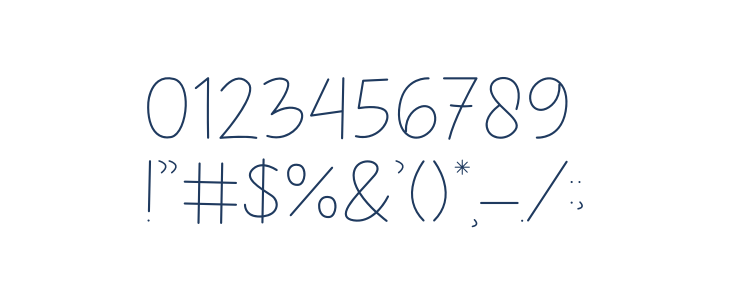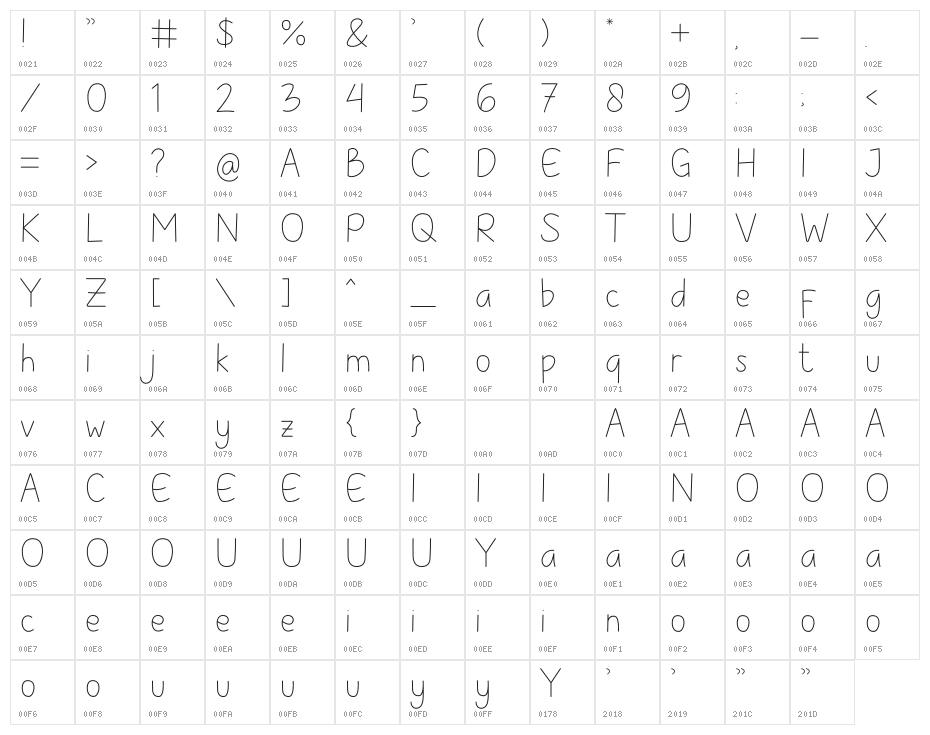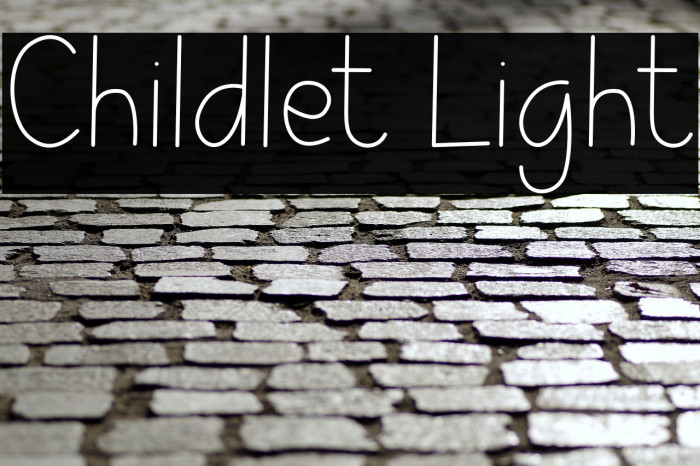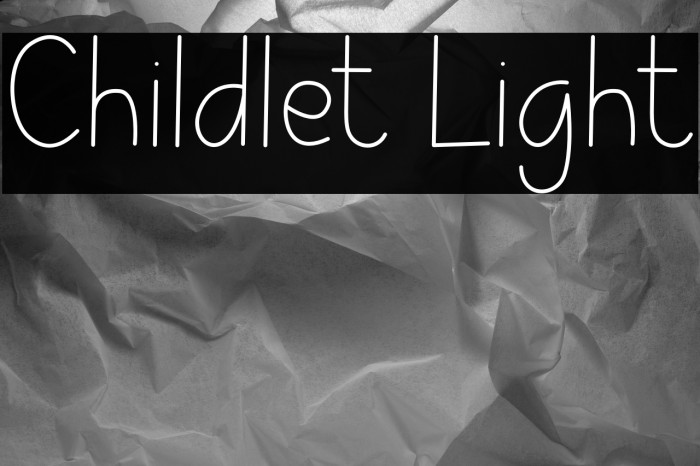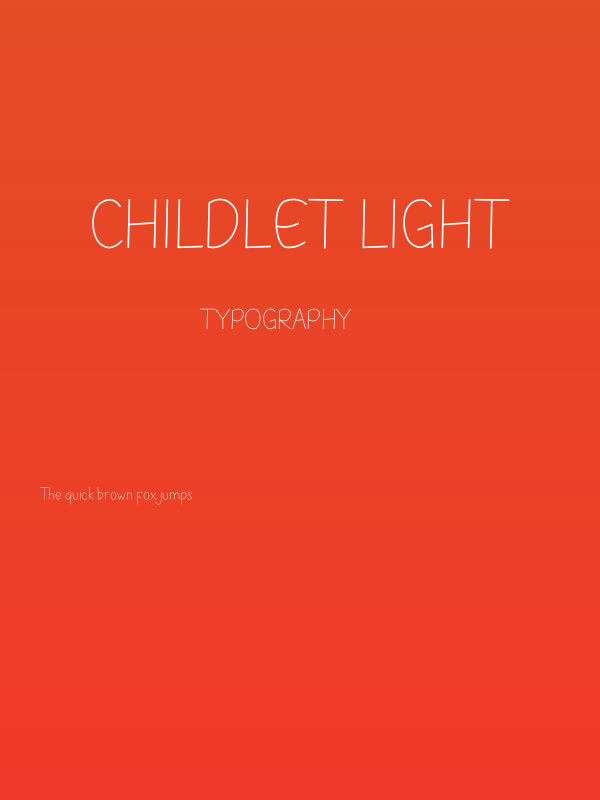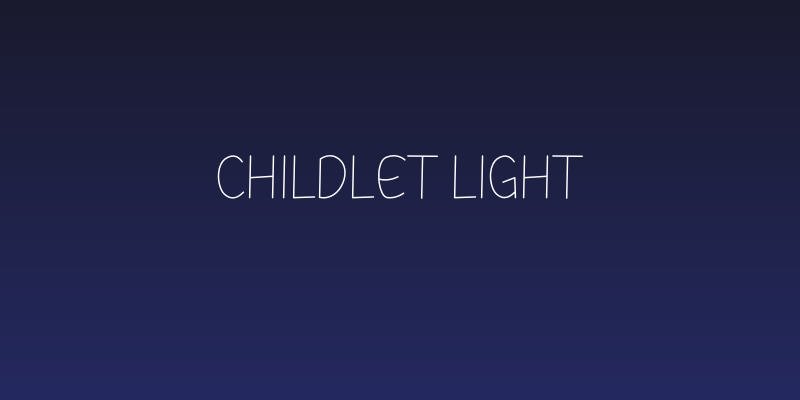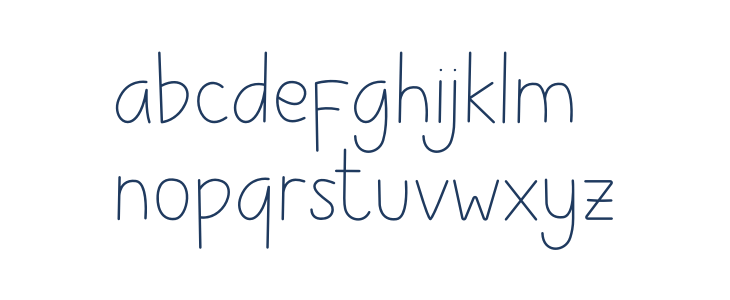
Childlet Light Font
Childlet Light Description
This font features a playful and whimsical design, characterized by its thin, light strokes and slightly irregular shapes that give it a hand-drawn appearance. The letters are tall and narrow, with a consistent line weight that maintains a clean and airy look. The rounded edges and gentle curves add a friendly and approachable feel, making it suitable for informal and child-friendly designs. The numbers and special characters follow the same style, ensuring a cohesive look across all text elements. This font's simplicity and charm make it versatile for various creative projects.
| Overall Style | Playful |
| Use Case | Headlines, Logos, Informal text |
| Proposed Projects | Ideal for children's books, educational materials, playful branding, and greeting cards. |